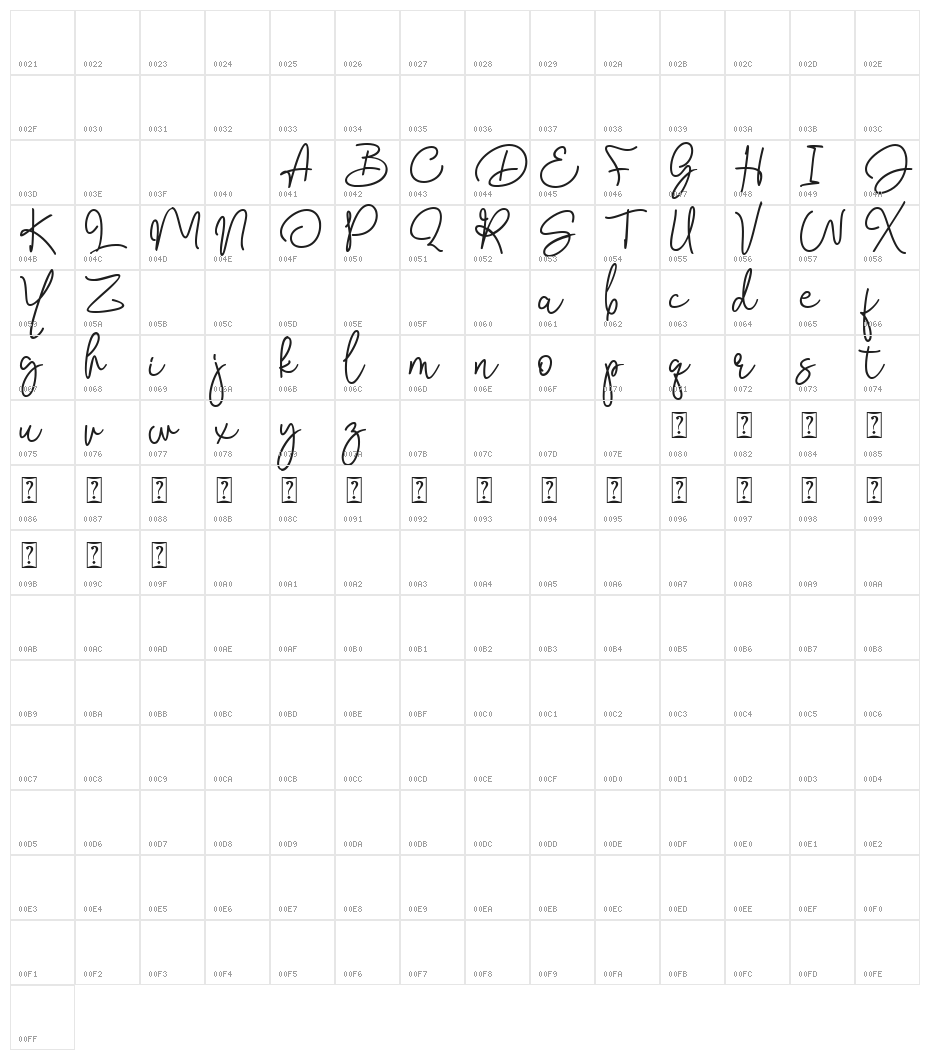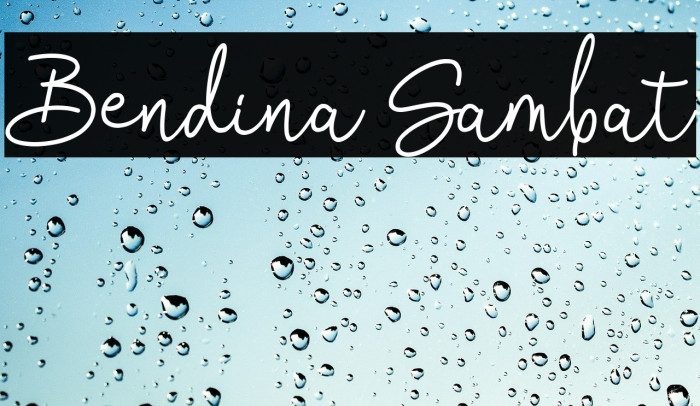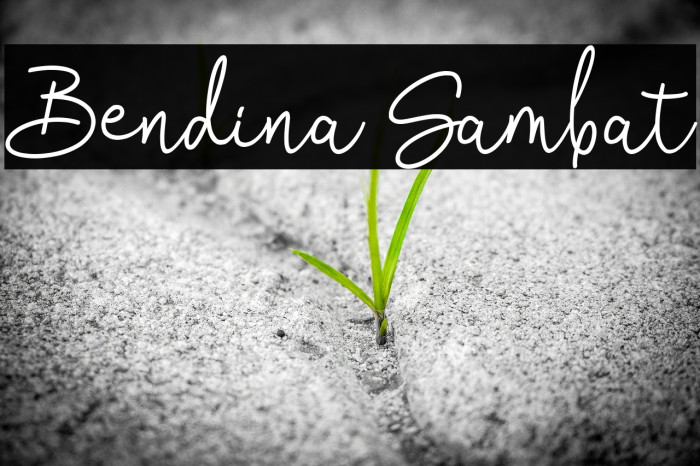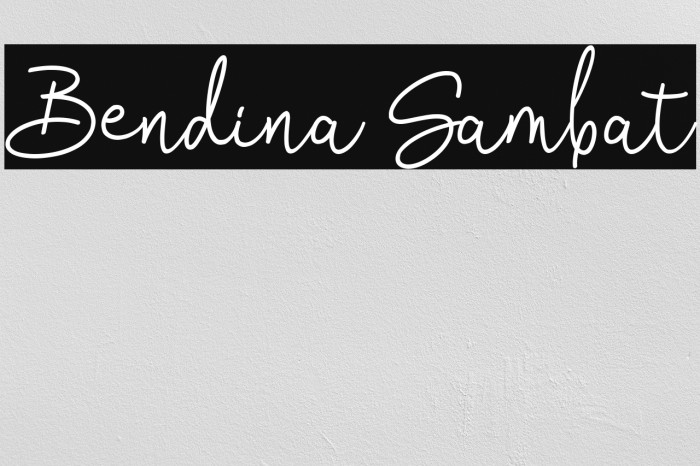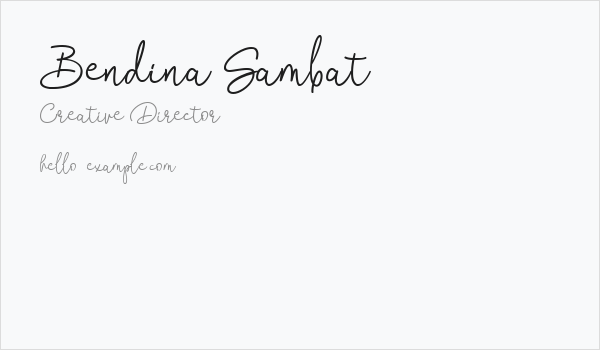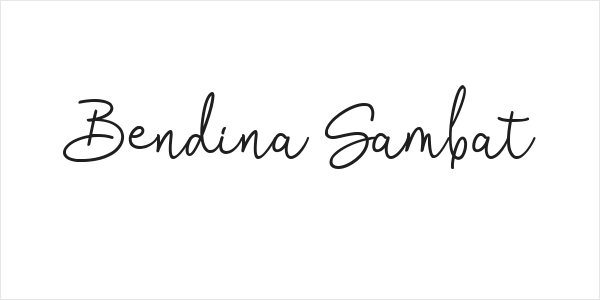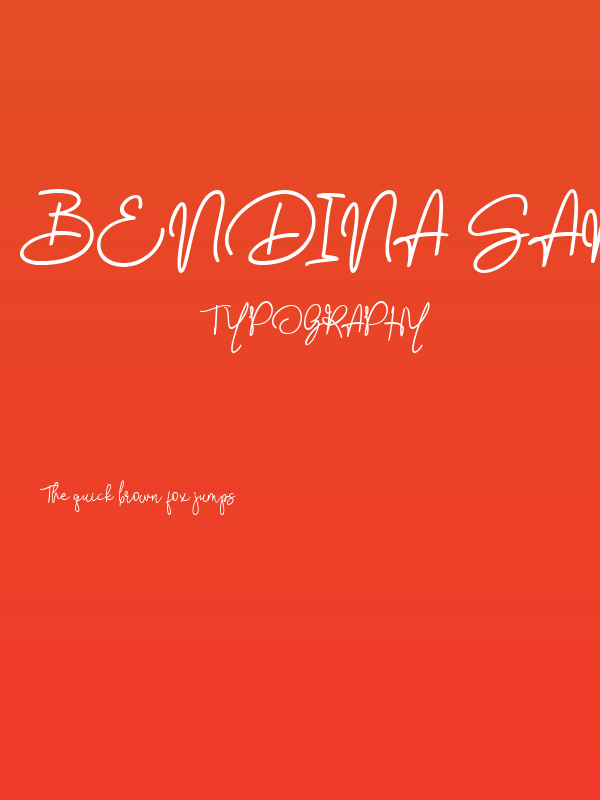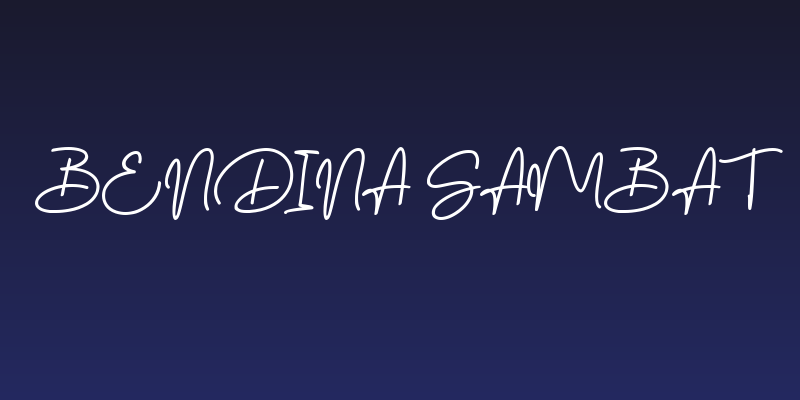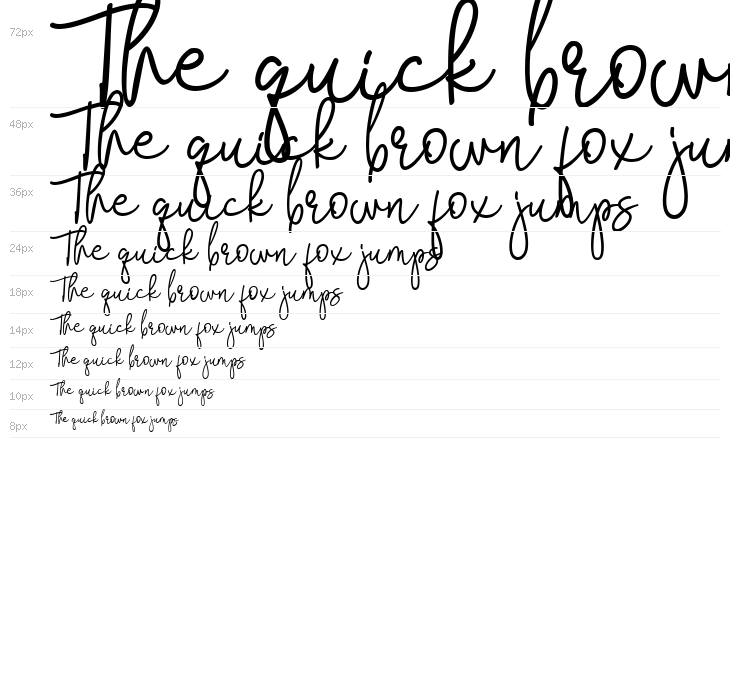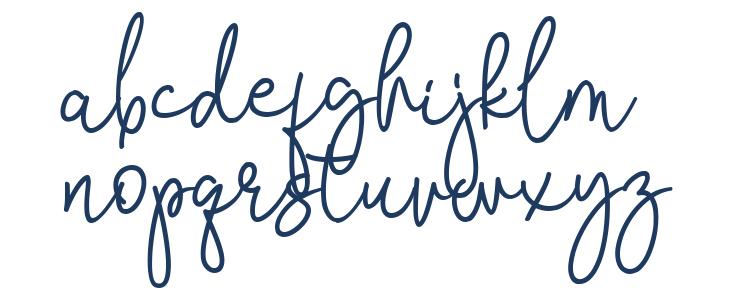
Bendina Sambat Description
This font features a flowing, cursive style with elegant loops and swirls that give it a handwritten appearance. The letters are interconnected, creating a seamless and fluid look. The uppercase letters are slightly more ornate, with extended strokes and flourishes, while the lowercase letters maintain a consistent, smooth flow. The overall design is both sophisticated and approachable, making it suitable for a variety of creative projects. The font's playful yet refined character is enhanced by its medium stroke contrast, which adds depth and interest without compromising readability.
| Use Case | Logos, Invitations, Personal stationery |
| Proposed Projects | Ideal for wedding invitations, greeting cards, branding, and personal stationery. |